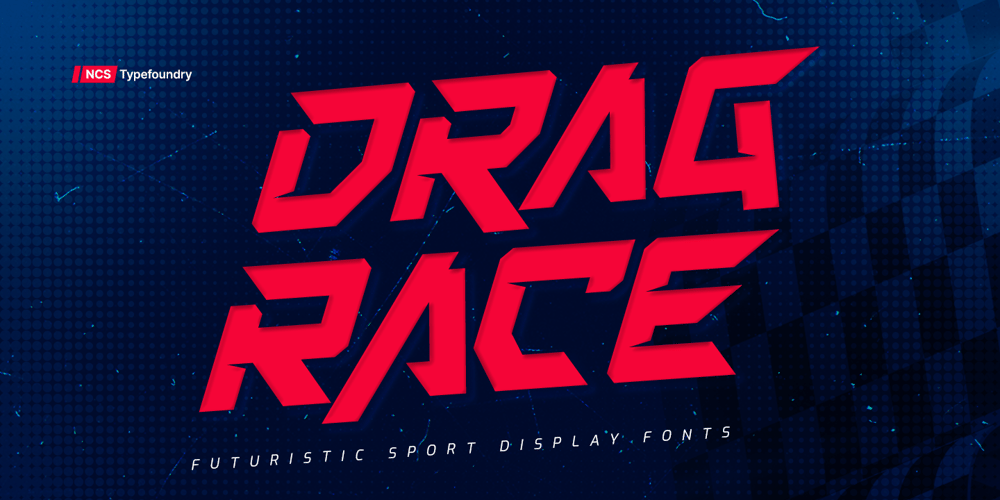
Dragrace Font Family was designed by Toni Setiawan and published by Namara Creative Studio. Dragrace contains 1 styles and family package options. Dragrace Futuristic Sport Display TypefaceStrong & unique characteristic combined with modern style, Suitable for headline, film/games cover, logotype, label design and automotive purposes.Features : Simple installations Alternates, ligatures & multilingual support Modern, sporty & techno futuristic theme Font Feel free to get in touch if need any help or special request about our fonts.